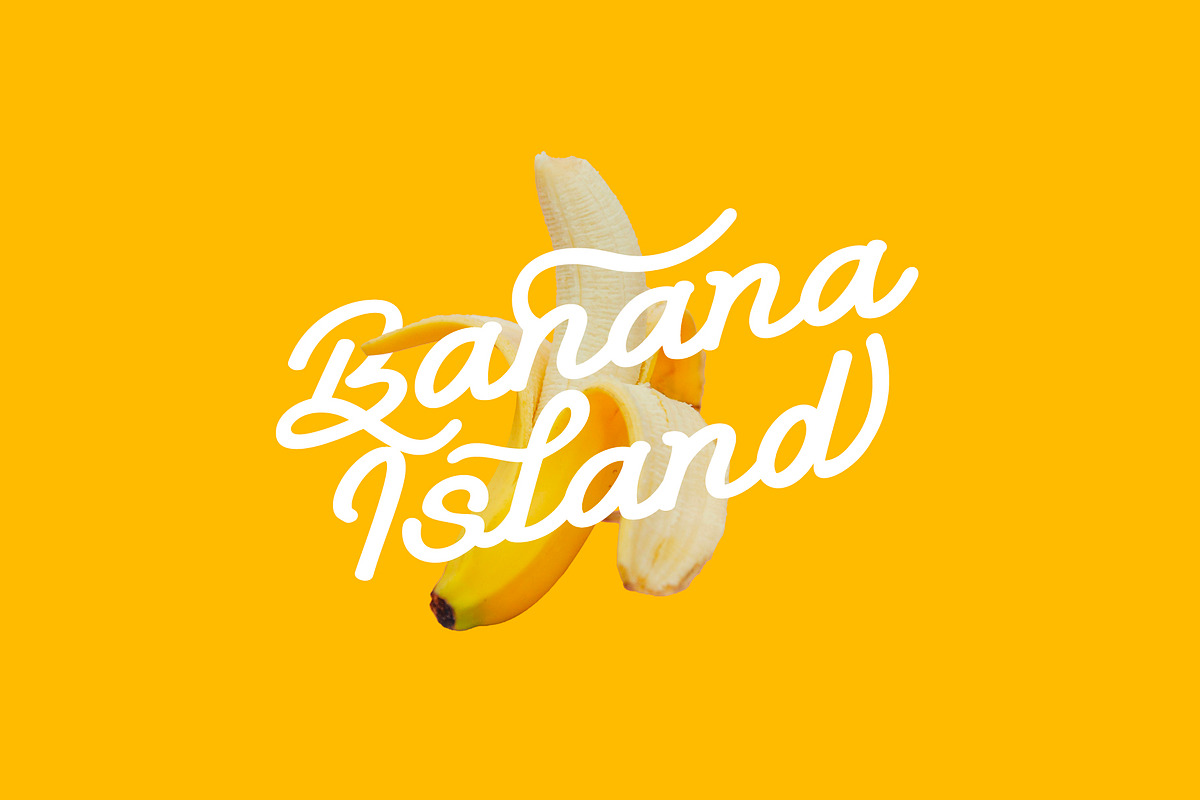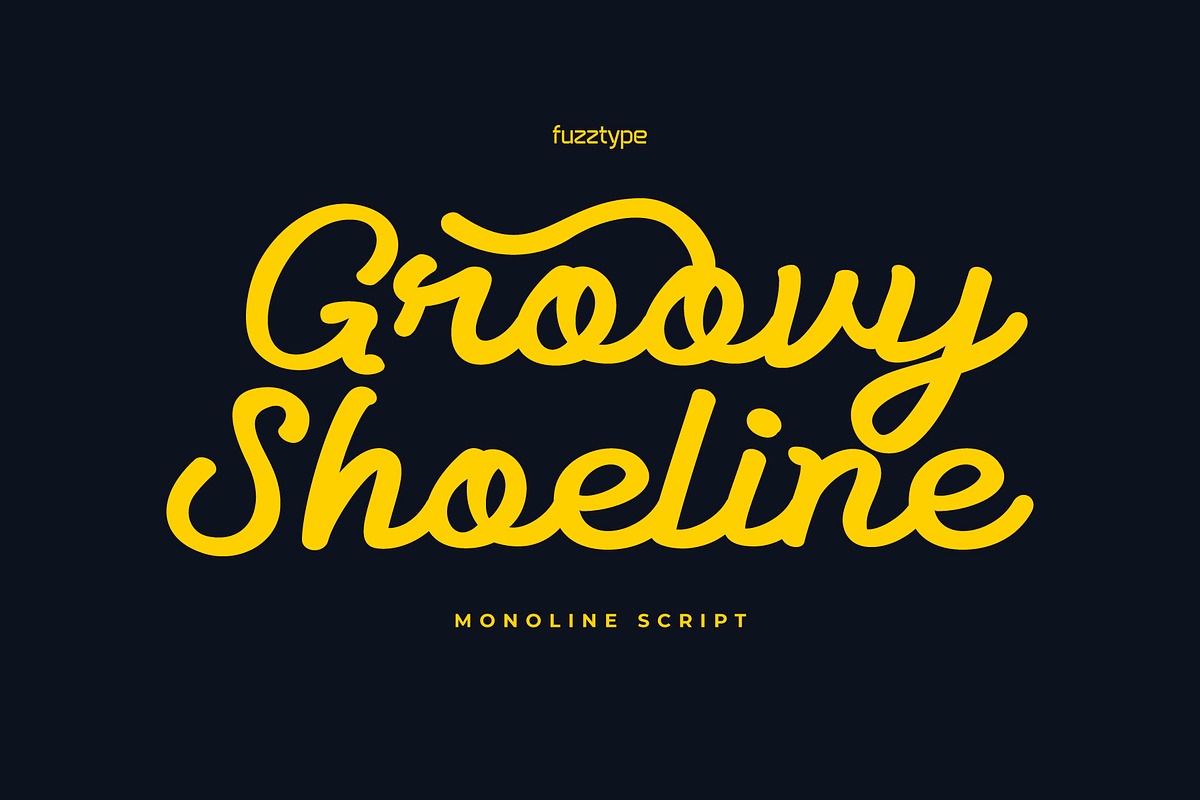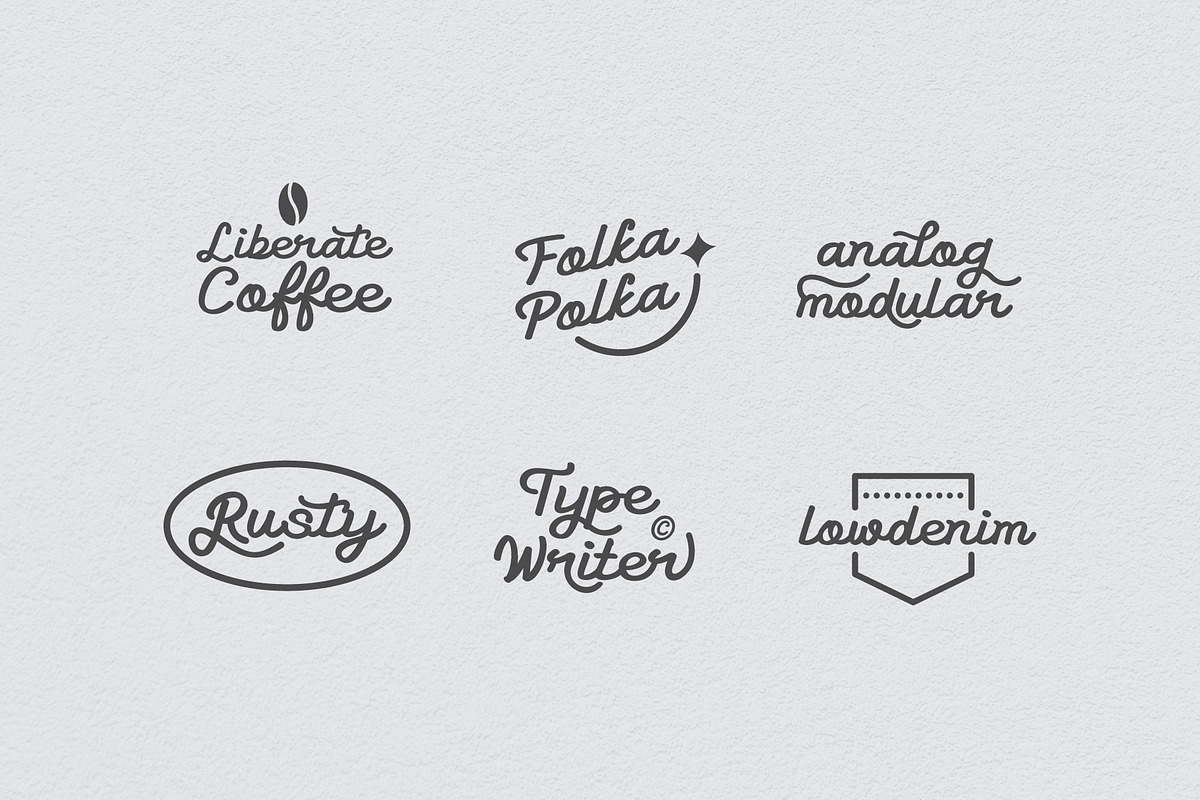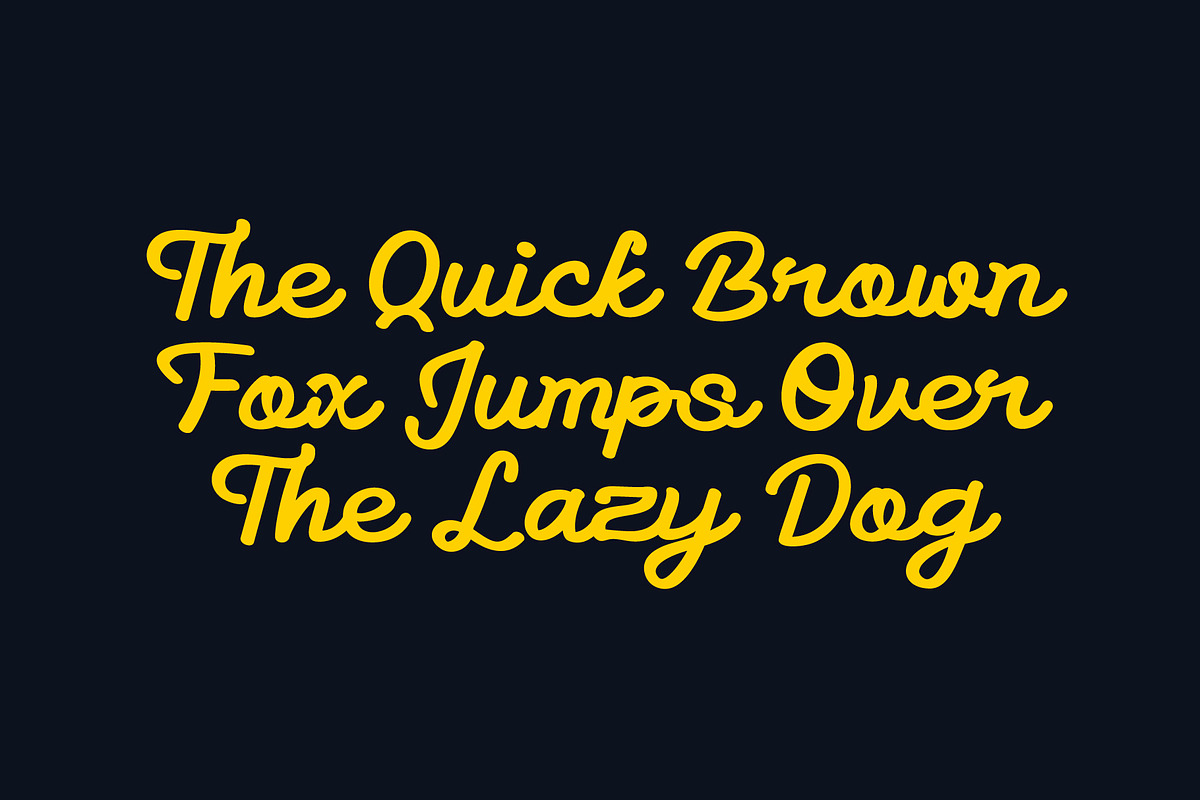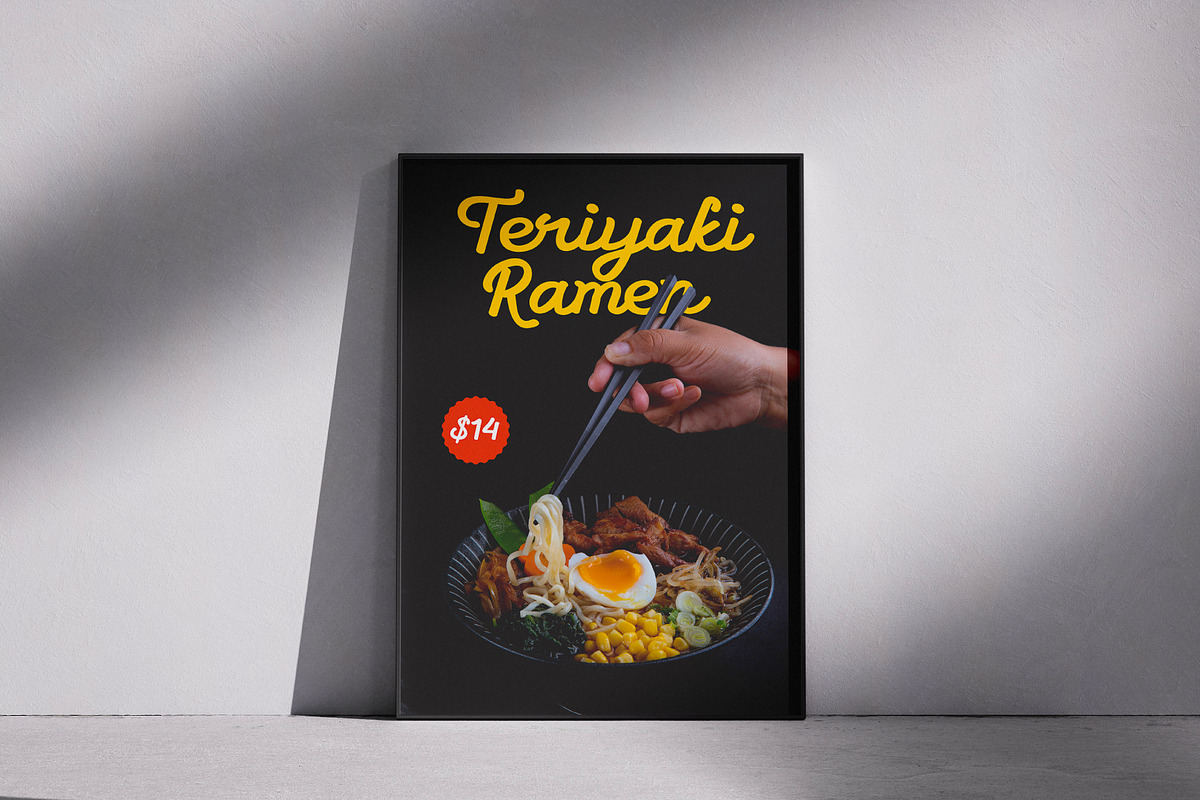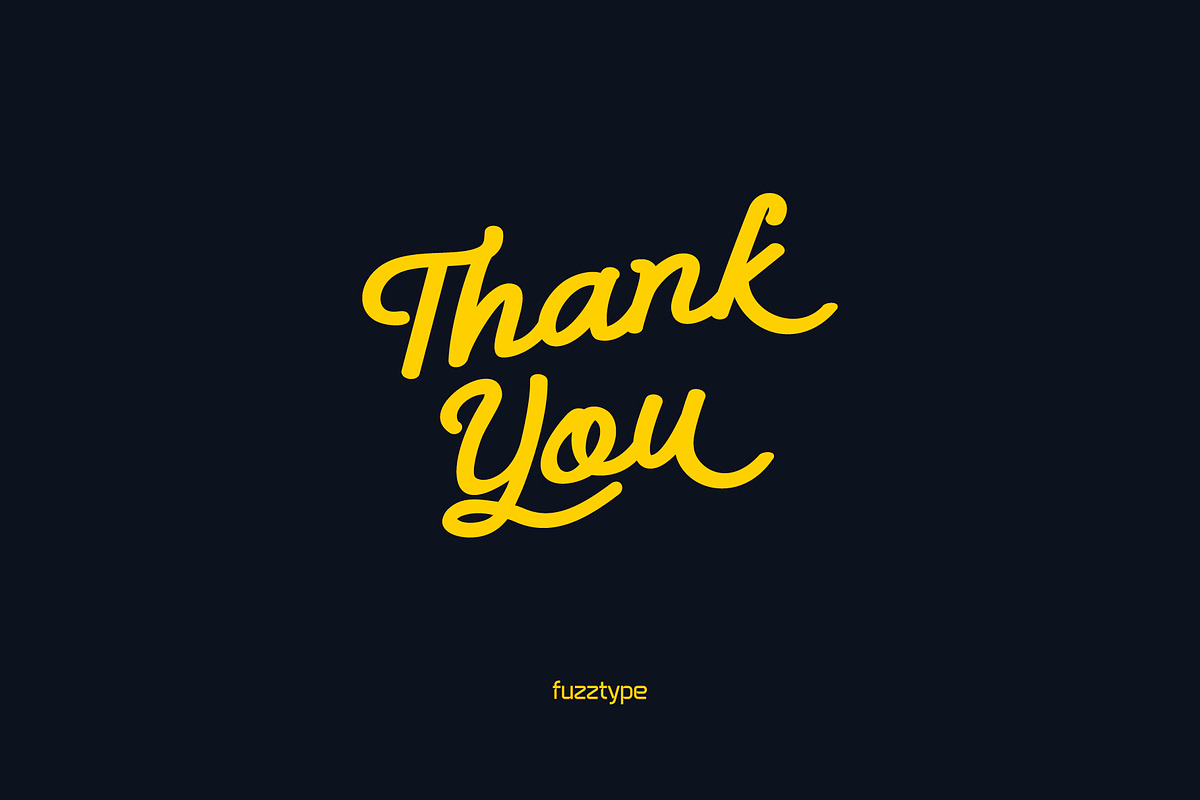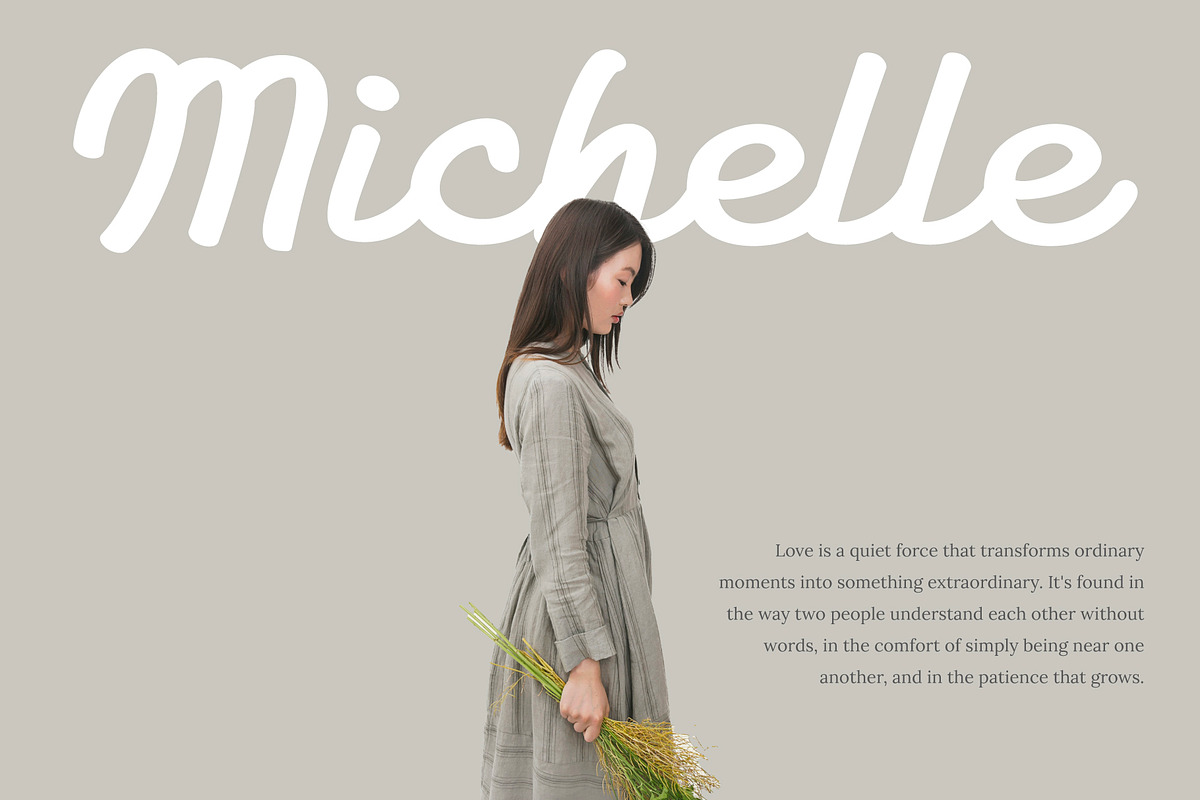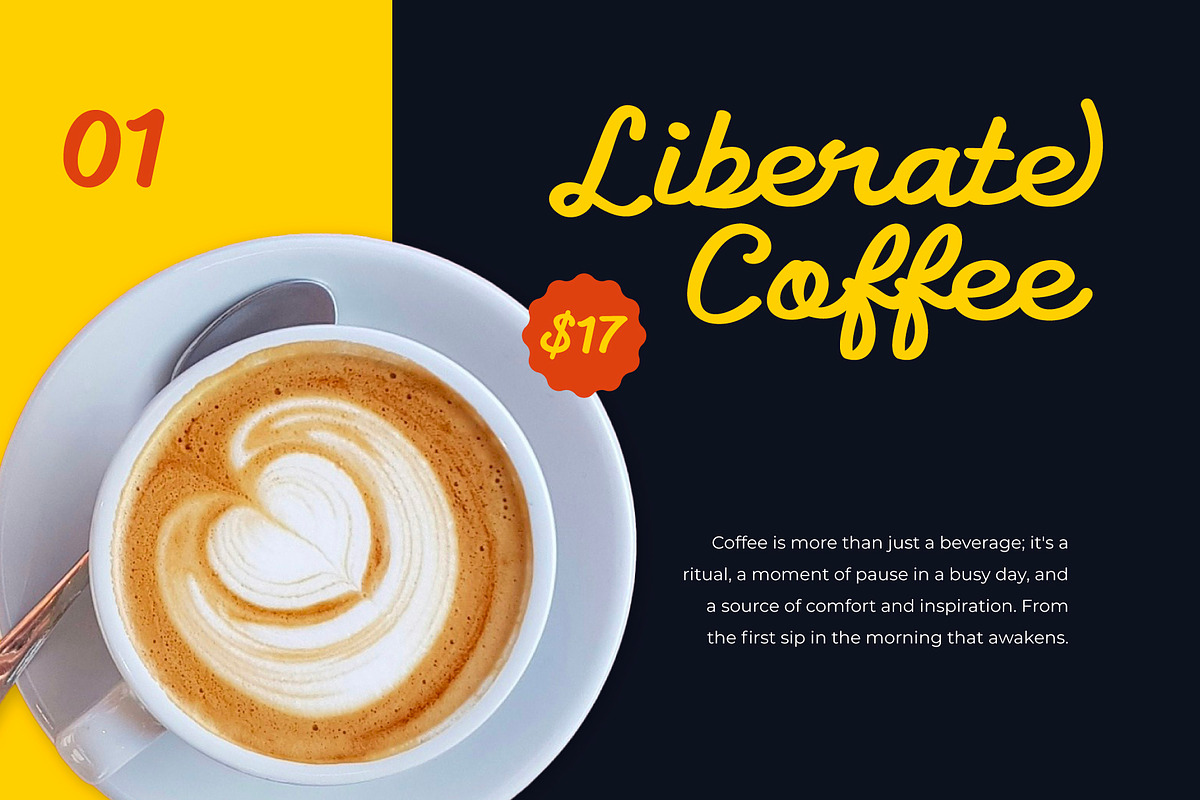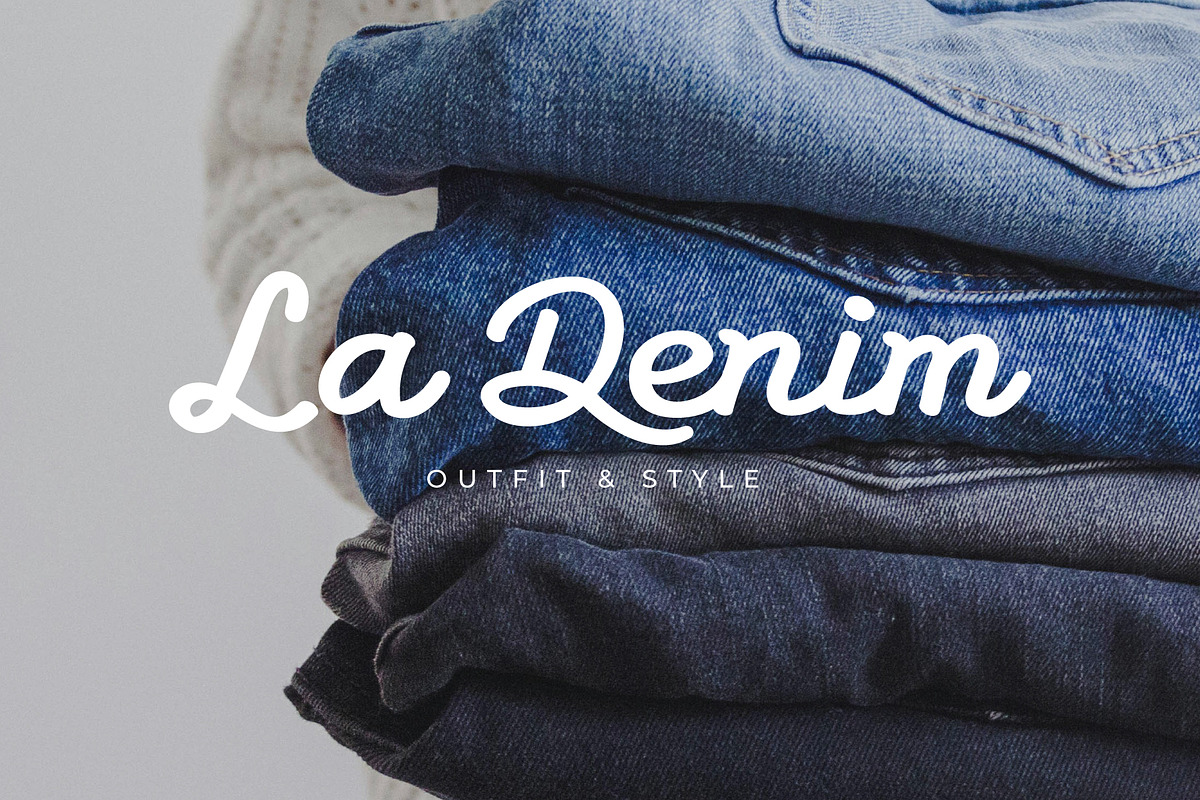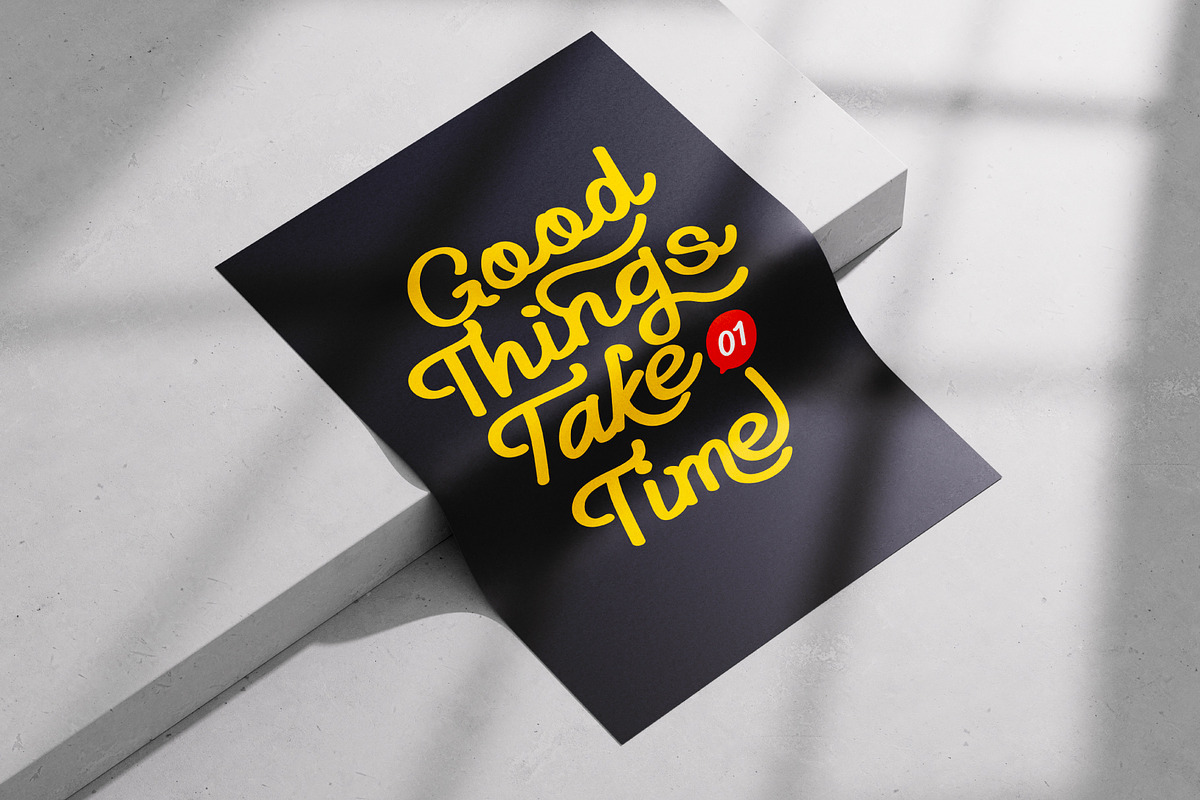
Groovy Shoeline - Monoline Script
Groovy Shoeline is a bold and bouncy monoline script font that brings a perfect blend of retro groove and modern elegance. With smooth flowing strokes and a handcrafted feel, this typeface is designed to stand out in logos, branding, merchandise, social media posts, and more.
Inspired by vintage shoelace typography and 70s-style lettering, Groovy Shoeline delivers playful character with clean readability — ideal for designers who want their work to shine with a fun yet professional look.
- Monoline script style with smooth, flowing curves
- Extensive ligatures for natural letter connections
- Multilingual support for extended Latin characters
- Alternate characters for stylistic variety and customization
- Perfect for logos, headlines, posters, apparel, and packaging
Whether you’re crafting a nostalgic brand identity or a bold design statement, Groovy Shoeline adds rhythm and personality to your type toolbox.